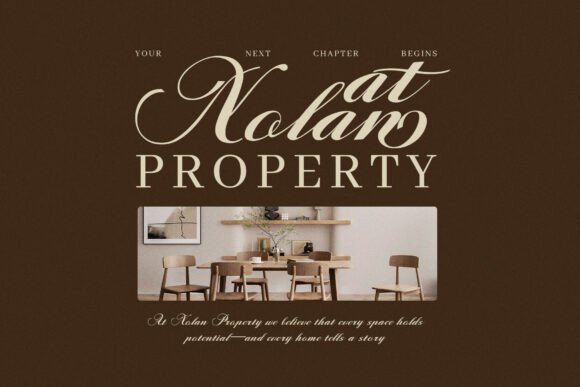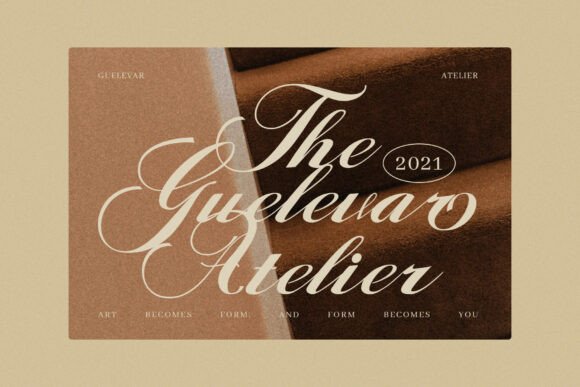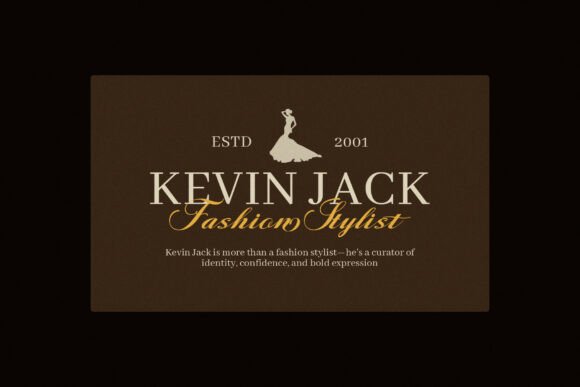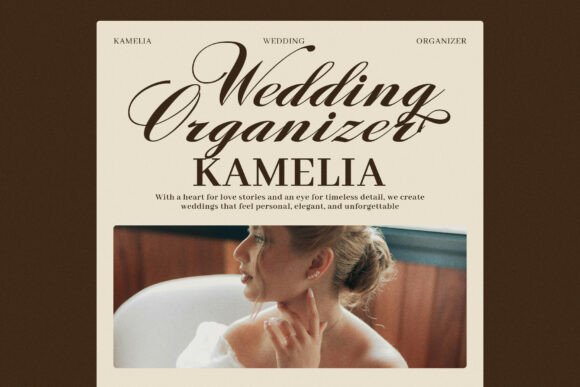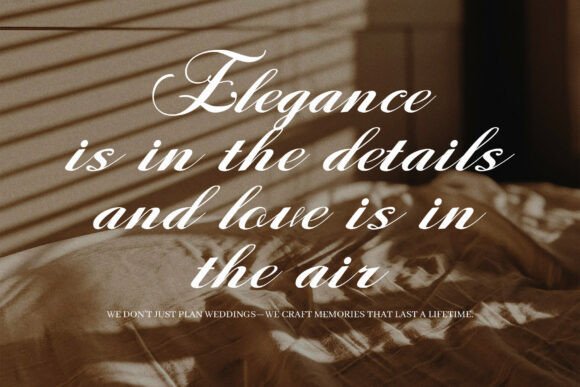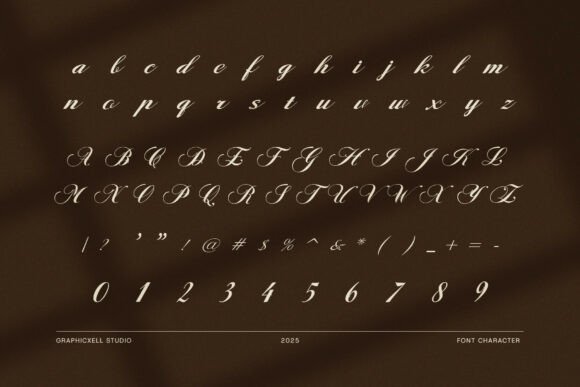
Introduction to Melysa Malgin Font
Do you remember the moment when you see a beautifully designed logo or a stunning invitation, and you’re instantly drawn to its elegance? That’s the magic of a well-designed font. Today, we’re excited to introduce you to the Melysa Malgin Font, a stylish and elegant calligraphy script that will elevate your creative projects to the next level.
As a designer, you’re always on the lookout for high-quality design resources that can help you create stunning visual content. The Melysa Malgin Font is a valuable addition to your design toolkit, offering a wide range of alternate characters and a transparent background that makes it perfect for both digital and print designs. Whether you’re working on a wedding invitation, a business card, or a magazine cover, this font is sure to impress.
With its elegant curves and classy feel, the Melysa Malgin Font is a must-have for any designer looking to add a touch of sophistication to their projects. And the best part? It’s available for free download, making it an accessible design resource for creatives of all levels.
Key Features of Melysa Malgin Font
- High-quality, free font ideal for creative projects and designs
- Comes with a transparent background, allowing for seamless integration with various design resources
- Designed with a unique aesthetic, making it an excellent choice for designers seeking a distinctive font for their creative project
Honest Review: Melysa Malgin Font
I recently came across the Melysa Malgin Font, and I must say it’s a fantastic addition to any designer’s toolkit. As a design enthusiast, I’m always on the lookout for high-quality, free downloads that can elevate my creative projects.
What works well with this font is its versatility. The Melysa Malgin Font has a unique, elegant design that can be used for both personal and professional projects. It’s perfect for creating eye-catching headings, and its transparent background makes it easy to layer over images or other design elements.
- ✨ Unique and elegant design
- ✨ Versatile and suitable for various projects
- ✨ Transparent background for easy layering
- ✨ High-quality design, perfect for professional projects
However, I did notice a few limitations. The font may not be suitable for projects that require a more bold or playful design style. Additionally, some users may find the font’s size range to be a bit limited.
- ⚠️ May not be suitable for bold or playful design styles
- ⚠️ Limited size range
Overall, I’m impressed with the Melysa Malgin Font. It’s a great design resource that can add a touch of sophistication to any creative project. I highly recommend giving it a try!
Tips for Getting the Most Out of Melysa Malgin Font
For optimal results, use Melysa Malgin Font in conjunction with high-quality images and graphics. Experiment with different font sizes and colors to create visual interest and balance in your design.
Common Use Cases for Melysa Malgin Font
Melysa Malgin Font is ideal for a variety of creative projects, including logos, business cards, brochures, and social media graphics. Its transparent background feature makes it perfect for creating custom designs with a professional look and feel.
Can I customize the Melysa Malgin Font to fit my design needs, or is it a fixed design resource?
The Melysa Malgin Font is a pre-designed font, but you can experiment with different font sizes, colors, and styles to create a unique look. Additionally, you can pair it with other design elements, such as graphics and images, to enhance your creative project. However, if you need a custom font design, you may want to consider commissioning a professional designer or using a font creation tool.